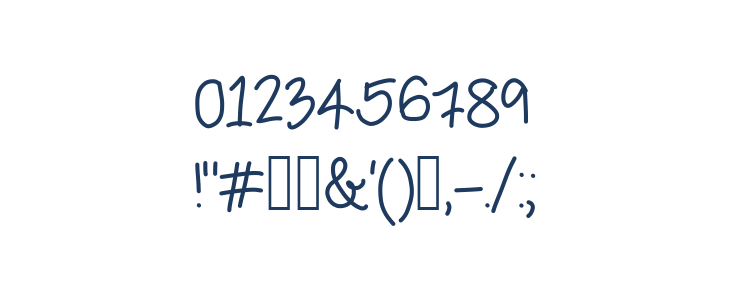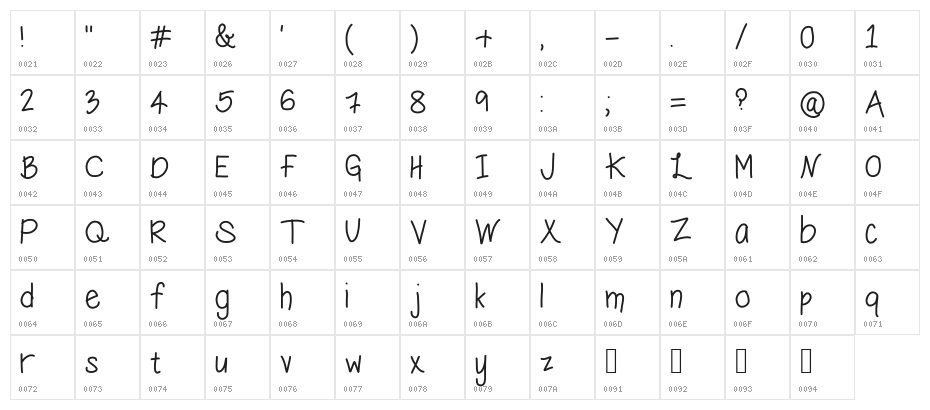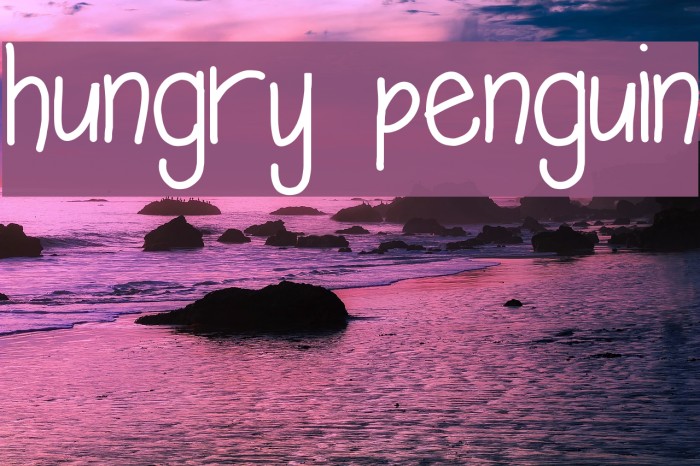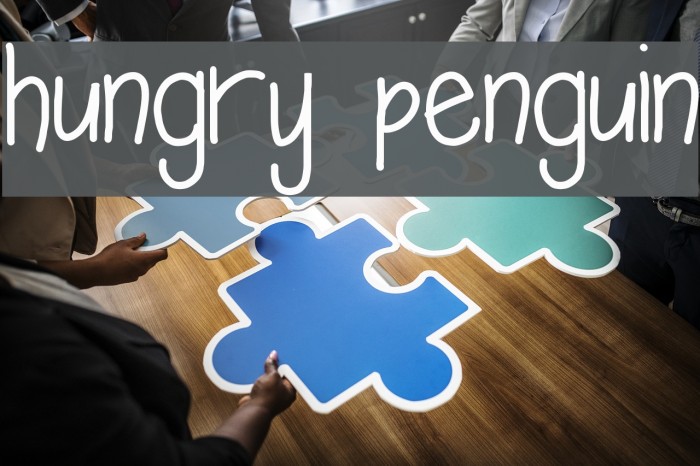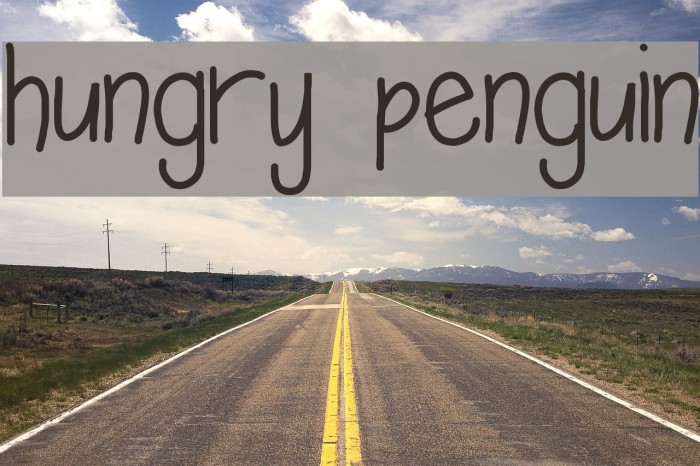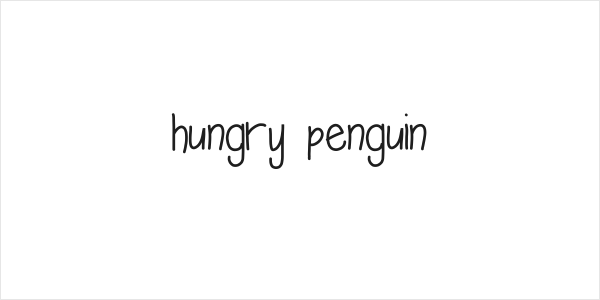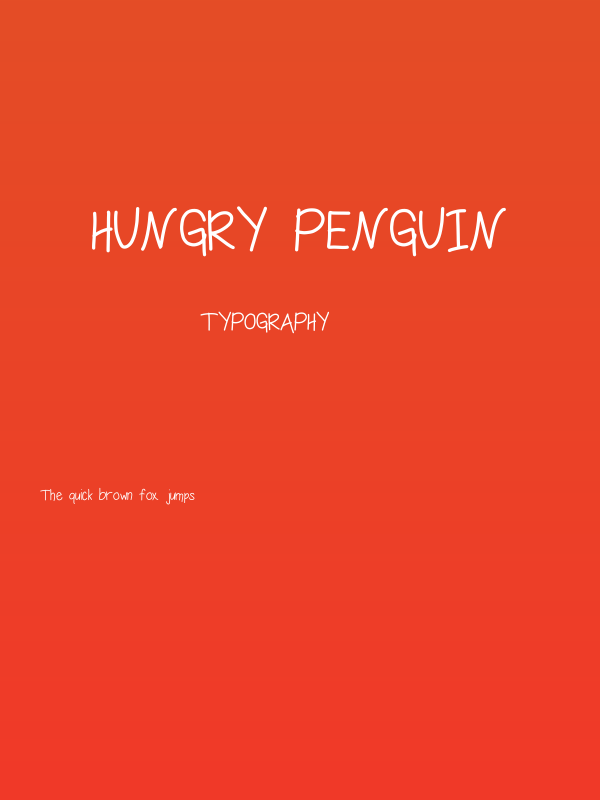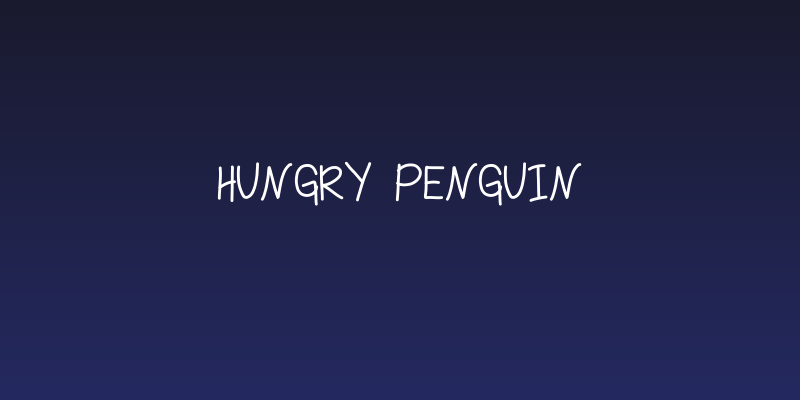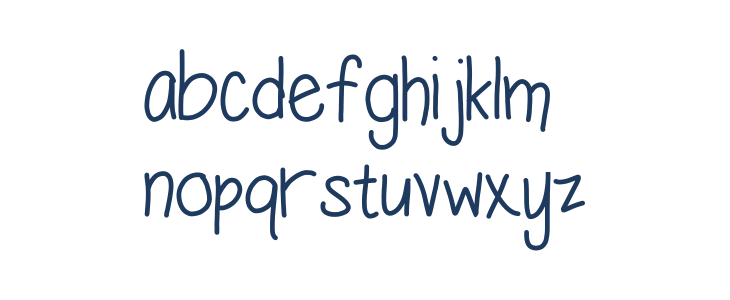
hungry penguin Font
hungry penguin Description
This playful and quirky font features a handwritten style with a casual, friendly appearance. The letters are slightly uneven, adding to its charm and informal feel. The strokes are consistent in thickness, giving it a uniform look despite its whimsical nature. The characters have a slight slant, enhancing the dynamic and lively quality of the font. The rounded edges and smooth curves contribute to its approachable and warm aesthetic, making it ideal for projects that require a personal touch. The font maintains good readability, even with its unique characteristics, making it versatile for various design needs.
| Use Case | Headlines, Informal text, Branding |
| Proposed Projects | Ideal for greeting cards, children's books, casual branding, and social media graphics. |